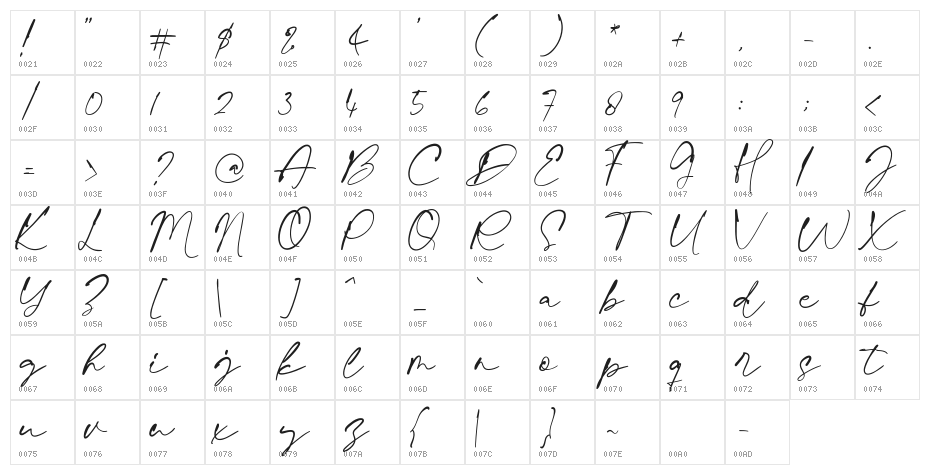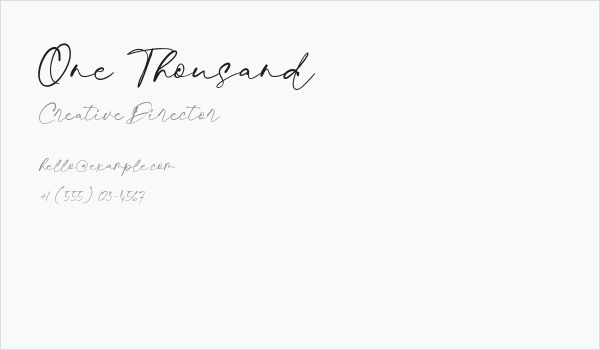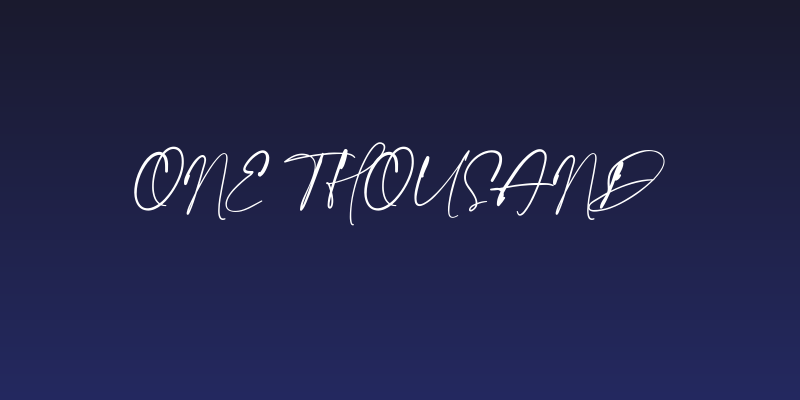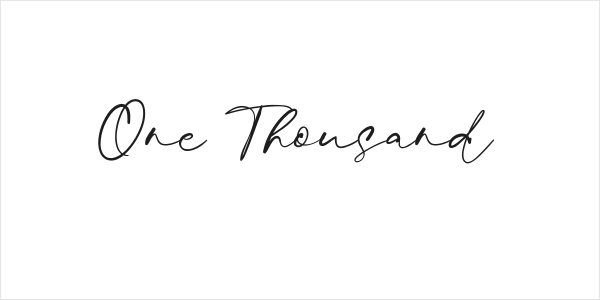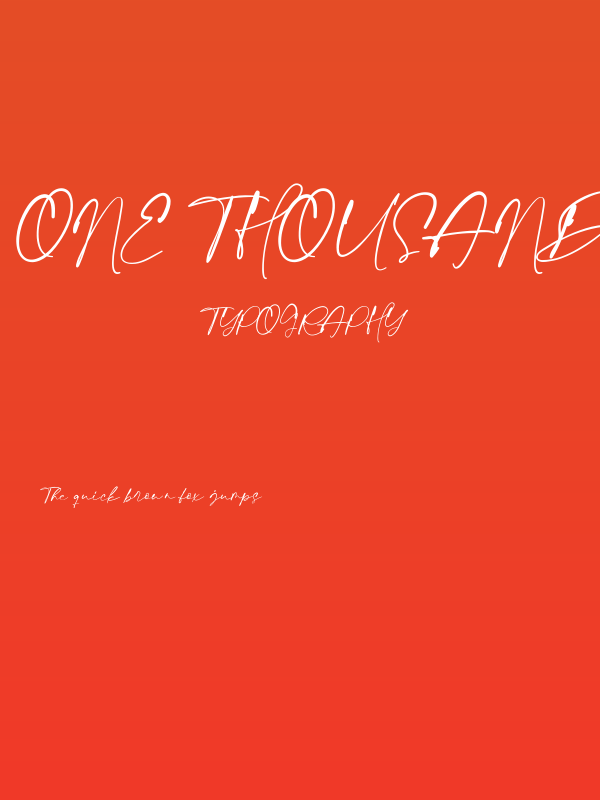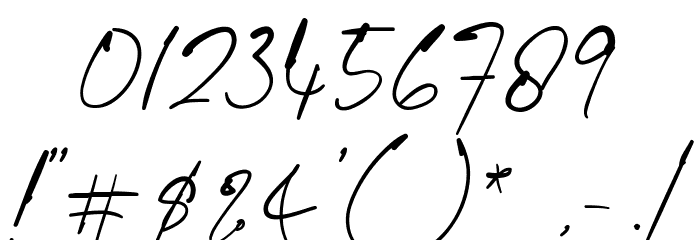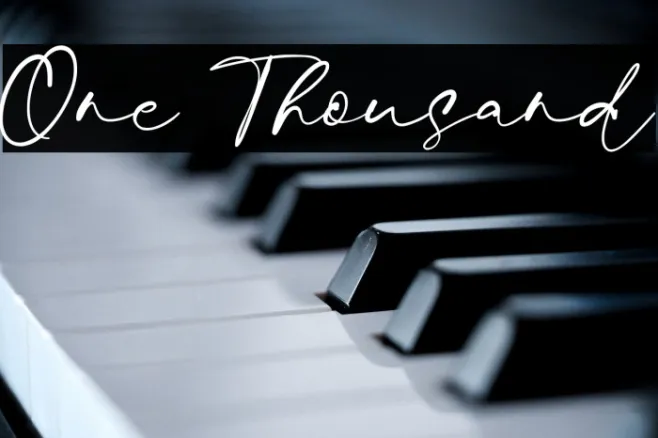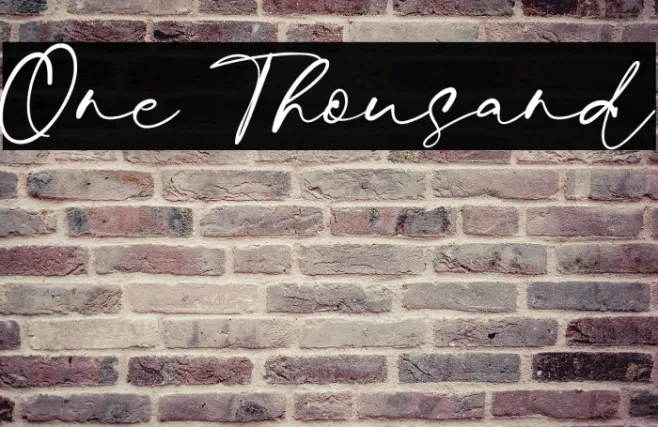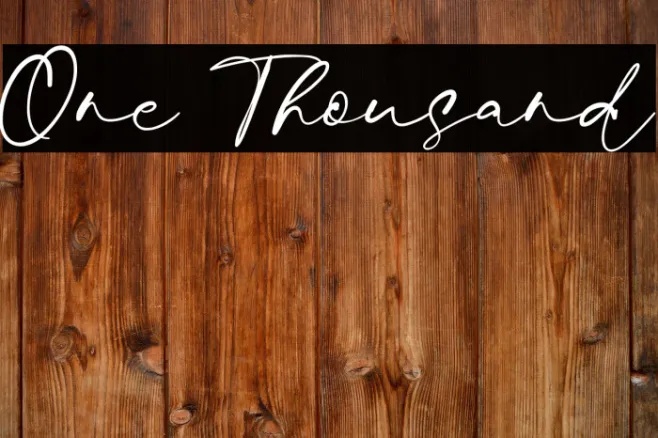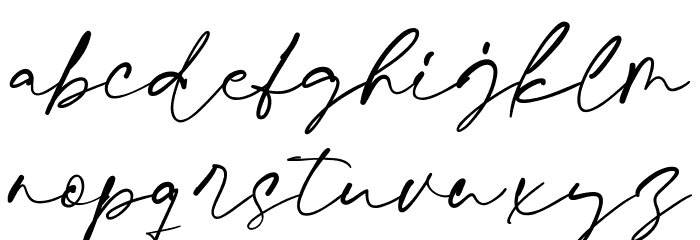
One Thousand Font
One Thousand Description
This font features a dynamic and fluid script style, characterized by its elegant and flowing letterforms. The strokes are smooth and connected, giving it a handwritten appearance that is both sophisticated and approachable. The uppercase letters are slightly more formal, while the lowercase letters maintain a casual and personal touch. The numerals and special characters are consistent with the overall style, ensuring a cohesive look across all text. This font is perfect for projects that require a personal and artistic touch, such as invitations, greeting cards, or branding materials.
| Overall Style | Elegant and Artistic |
| Use Case | Logos, Invitations, Artistic Projects |
| Proposed Projects | Ideal for wedding invitations, personal branding, greeting cards, and artistic projects. |